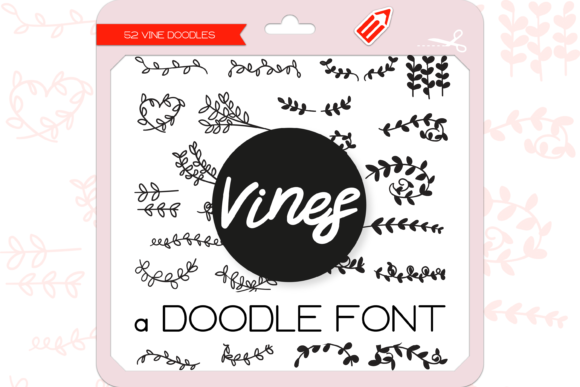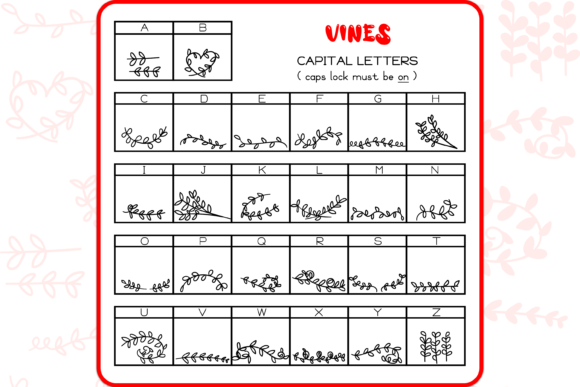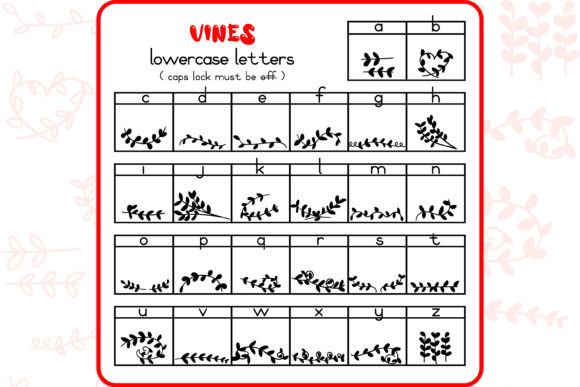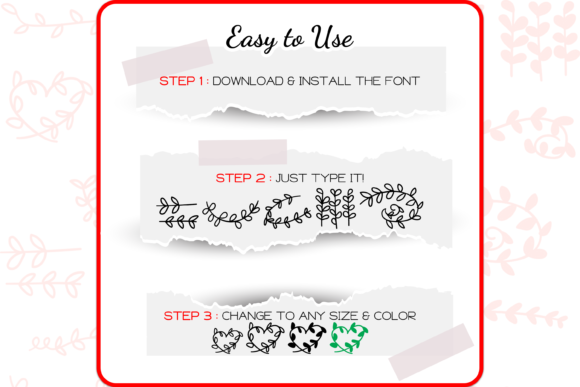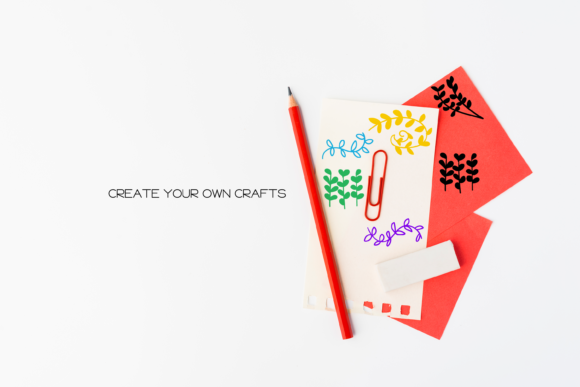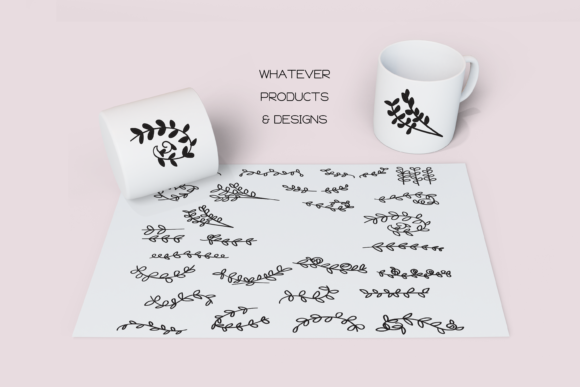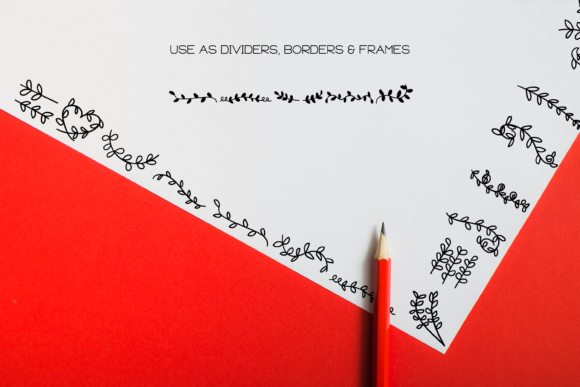
Vines Dingbats Font
Absolutely! “Vines” is a stunning dingbats font that brings the beauty and elegance of nature to your designs. With its collection of hand-drawn vine doodles, this font offers versatile options for incorporating a natural and organic element into your projects. Here are some ways you can utilize the “Vines” font:
1. Borders and Dividers: Use the vine doodles as decorative borders or dividers to create a sense of sophistication and natural beauty in your designs. These intricate vines can add an elegant touch and evoke a sense of organic growth and harmony.
2. Frames: Incorporate the vine doodles as frames around images or text to create a captivating presentation. The delicate and twisting vines can add a touch of enchantment and provide a visually appealing frame for your content.
3. Background Elements: Create intricate and nature-inspired backgrounds or patterns using the vine doodles to add depth and visual interest to your designs. Whether you’re working on invitations, posters, or digital artworks, incorporating vines can create a sense of lushness and natural beauty.
4. Emphasize Text: Use the vine doodles to highlight important text or headings. Placing a vine next to key phrases or titles can draw attention and create an elegant and eye-catching effect in your design.
5. Botanical Designs: Since the “Vines” font is inspired by nature, it is a perfect choice for botanical-themed designs. Whether you’re creating botanical illustrations, botanical-themed branding, or garden-related projects, incorporating the vine doodles can add an authentic and organic touch.
6. Wedding and Event Designs: The intricate and graceful nature of the vine doodles makes them well-suited for wedding invitations, event stationery, or any design that requires a touch of elegance and romance. The vines can add a delicate and enchanting element to your designs.
7. Packaging and Branding: Incorporate the vine doodles in packaging and branding designs to create a natural and sophisticated visual identity. Whether you’re designing for a luxury product, organic brand, or any other business that aligns with nature-inspired aesthetics, the vine doodles can help create a unique and captivating brand image.
Remember to experiment with different sizes, orientations, and colors of the vine doodles to create unique and outstanding designs. The hand-drawn style of “Vines” adds an organic and artistic touch to your creations, giving them a sense of natural beauty and elegance.
In summary, “Vines” is a beautiful dingbats font that allows you to incorporate the beauty of nature into your designs. Whether you’re using the vine doodles as borders, dividers, frames, or exploring other creative possibilities, they are sure to make your designs stand out. Embrace the natural and organic charm of “Vines” and let your creativity flourish with its hand-drawn vine doodles!